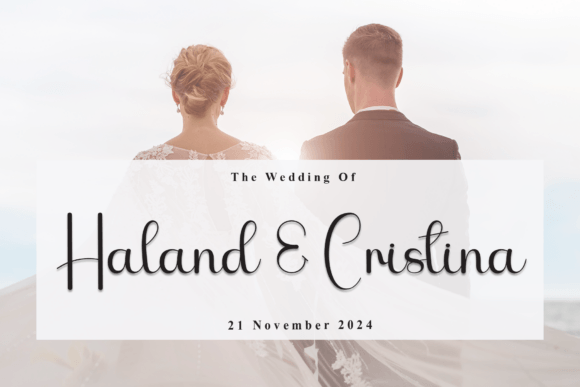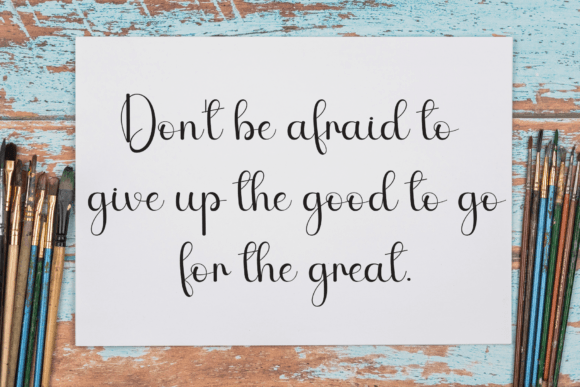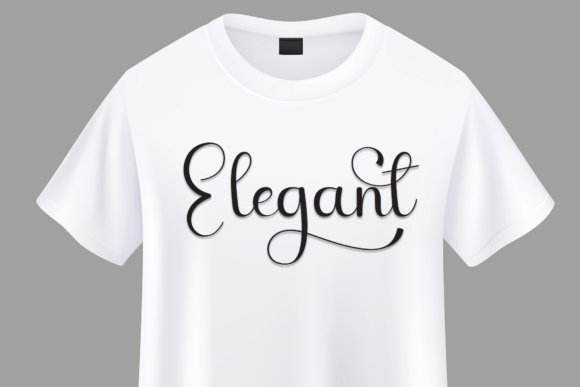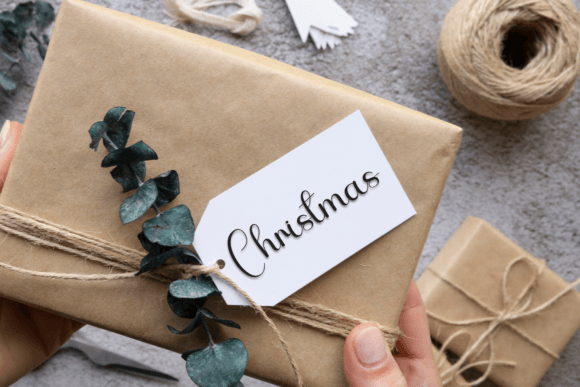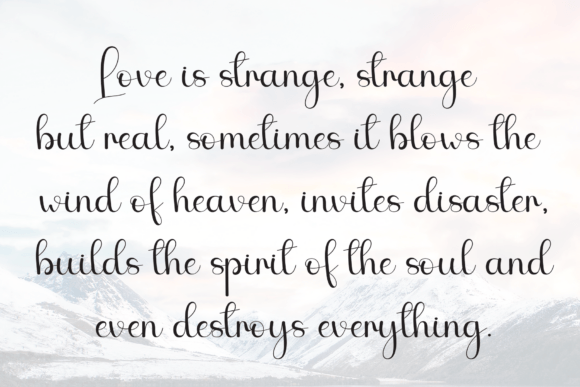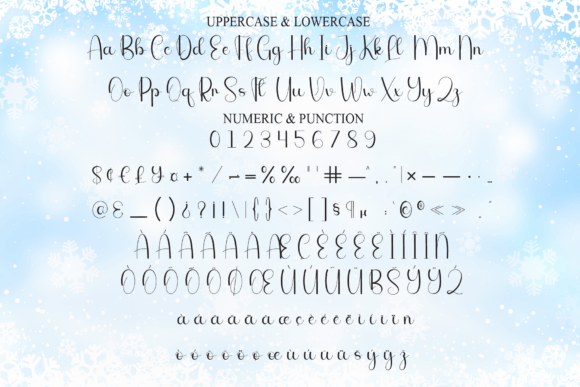
Introduction to Bright Frosty Font
Introducing a charming and handwritten display font that exudes sweetness and friendliness.
With its adorable and lively features, this font is the utmost match for wedding invitations, greeting cards or any design project that craves an injection of fun Crafted with love, this font delivers a whimsical, joyous touch to any canvas it graces, making it a delightful addition to your design toolkit.